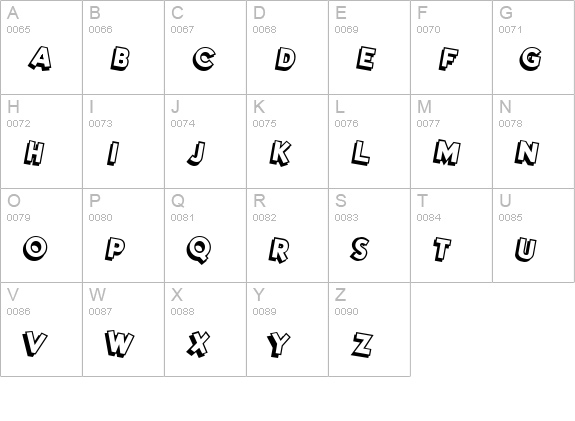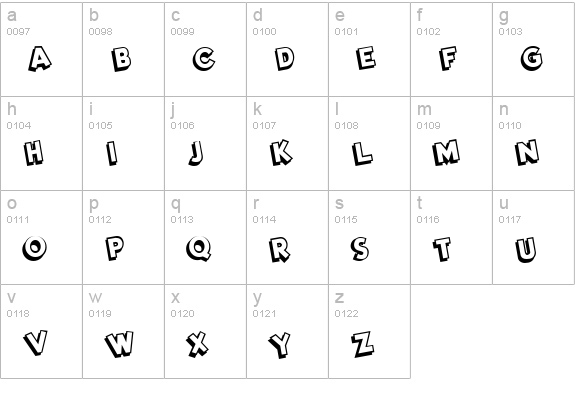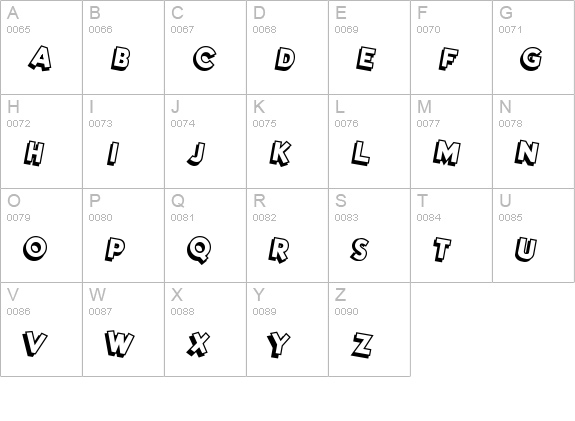
DimWitGauche Font Details
Introducing DimWitGauche, a whimsical and playful font that is sure to add a touch of charm to any design project. With its quirky and distinctive characters, DimWitGauche brings a sense of lightheartedness and creativity to your typography. This font is perfect for a wide range of applications, from children's books and invitations to posters and logos. Its unique style is bound to capture attention and create a memorable impression. Whether you're aiming for a fun and vibrant design or looking to add a touch of quirkiness to your branding, DimWitGauche has got you covered. But what makes DimWitGauche even more appealing is that it is absolutely free to download. That's right, this delightful font can be yours without any cost. Simply head over to FontsMarket.com and discover the joy of freely accessing this amazing typeface. With its freely available download, DimWitGauche offers a fantastic opportunity for designers, creatives, and enthusiasts to experiment and explore their artistic endeavors. The font's versatility and playful nature make it a valuable addition to any font library. So why wait? Take advantage of this incredible offer and bring a touch of whimsy to your designs with DimWitGauche. Download it for free today at FontsMarket.com and let your imagination run wild.